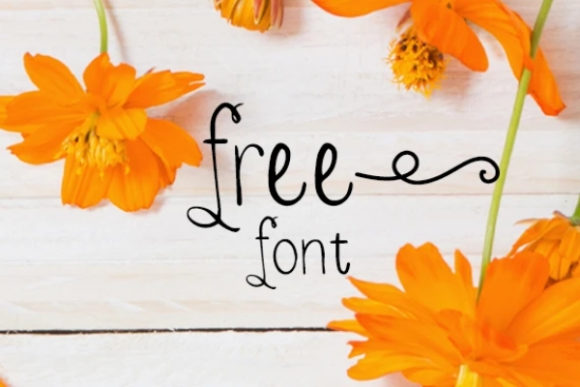
The Elegance of Free: A Handwritten Font that’s Anything but Ordinary
I still remember the design project that led me to discover the Free font. I was working on a branding project for a boutique stationery store, and my client specifically asked for a handwritten font that exuded elegance and sophistication. I scoured the internet, tried out dozens of fonts, but nothing seemed quite right. That was until I stumbled upon Free. Its classy calligraphic influences and contemporary feel instantly won me over, and I knew I had found the perfect fit.
An Honest Review of Free
- ✨ Elegant and refined: Free’s calligraphic roots shine through in its fluid strokes and beautiful letterforms.
- ✅ Versatile: Whether you’re designing a letterhead, title, or stationery, Free adapts effortlessly to different contexts.
- 💫 Contemporary feel: Despite its classic influences, Free feels fresh and modern, making it perfect for a wide range of design projects.
While Free is an outstanding font, it’s not without its quirks. For instance:
- ⚠️ Limited use of uppercase letters: Some users have noted that the uppercase letters can appear a bit inconsistent, so it’s best to use them sparingly.
- 🤔 Requires careful kerning: As with any handwritten font, kerning can be a bit tricky. Make sure to adjust the spacing to ensure optimal readability.
The Story Behind Free
Free was designed with the goal of creating a beautiful, elegant handwritten font that would appeal to designers and crafty hobbyists alike. The designer drew inspiration from classic calligraphy and modern typography, resulting in a font that’s both refined and fresh.
Q: What is the best way to use Free in a design project?
A: Free is perfect for a wide range of design projects, from letterheads and titles to stationery and more. Experiment with different contexts to find the best fit for your project.
Q: Is Free suitable for body text?
A: While Free is a beautiful font, it’s best suited for headlines, titles, and short paragraphs. For longer body text, you may want to choose a font with better readability.